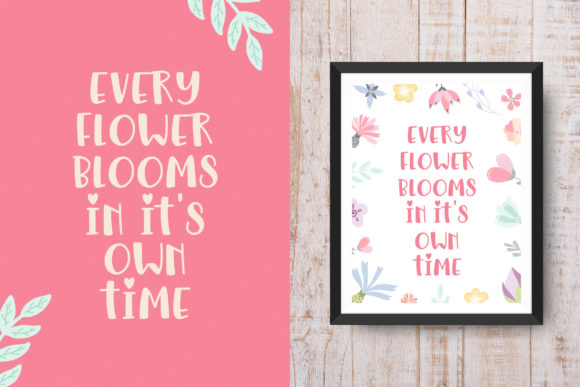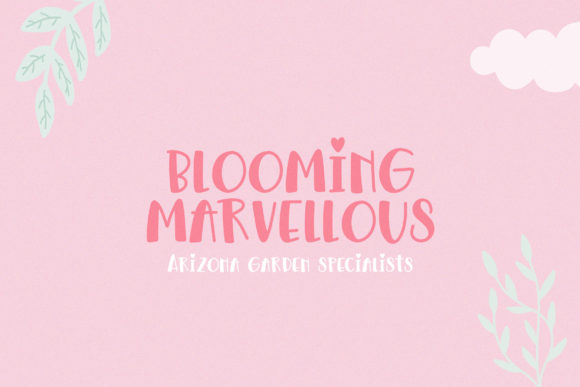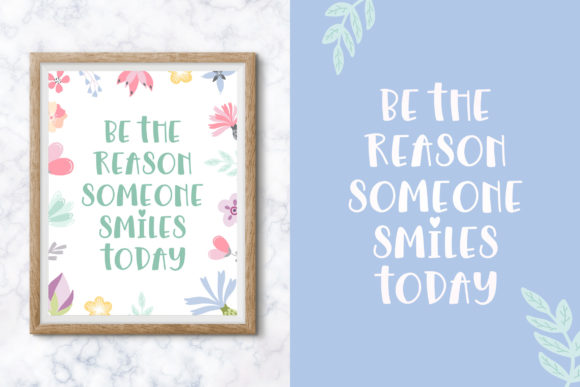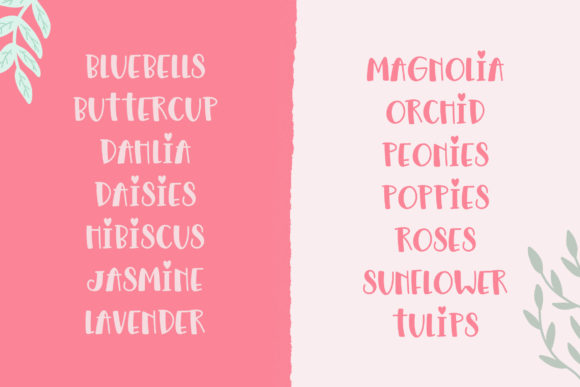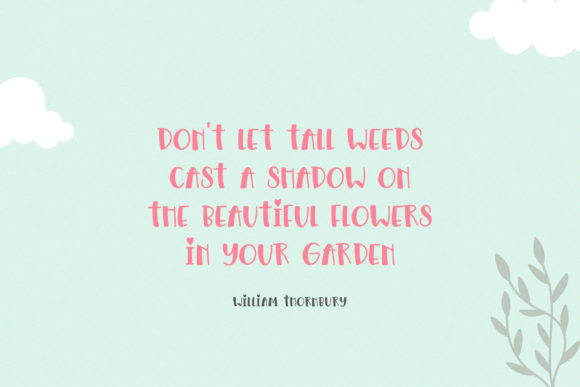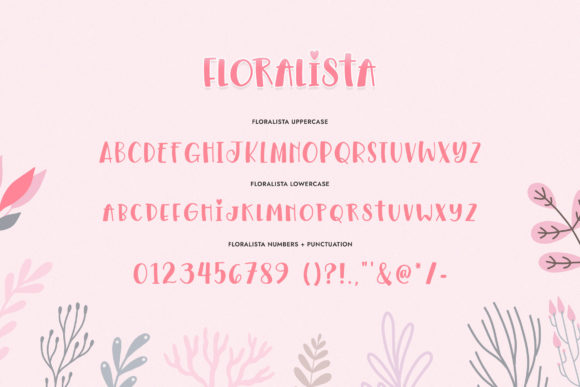
Introduction to Floralista Font
As a designer, there’s nothing quite like the thrill of stumbling upon the perfect font to bring a creative project to life. For me, that moment came when I discovered the Floralista Font. Its playful, whimsical feel immediately captured my imagination, and I knew I had to learn more.
With its friendly and cute display style, the Floralista Font is the perfect choice for any children’s activity or school project. Whether you’re designing a logo, creating a flyer, or developing a brand identity, this font is sure to add a touch of authenticity and charm. Its versatility and high-quality design make it a valuable resource for designers, and the best part? It’s available for a free download with a transparent background, making it easy to incorporate into any creative project.
Key Features of Floralista Font
- High-quality design resource ideal for creative projects, including invitations, greeting cards, and more.
- Includes a variety of styles and weights, providing versatility for different design applications.
- Designed with a high resolution (up to 300 DPI), ensuring crisp and clear text display.
- Perfect for designers seeking a unique, elegant, and sophisticated font for their creative project.
Honest Review: Floralista Font
As a designer, I’m always on the lookout for high-quality fonts that can elevate my creative projects. The Floralista Font is a beautiful, hand-drawn design that’s perfect for adding a touch of elegance to any design. With its transparent background, it’s easy to layer and customize to suit your needs.
Here are some things that work well about the Floralista Font:
- ✨ Beautiful, hand-drawn design that’s perfect for creative projects
- ✨ High-quality font that’s crisp and clear
- ✨ Transparent background makes it easy to layer and customize
- ⚠️ Limited character set, which may not be suitable for long blocks of text
- ⚠️ May not be as versatile as other fonts, due to its hand-drawn design
Overall, I’m impressed with the Floralista Font. It’s a beautiful, high-quality design that’s perfect for adding a touch of elegance to your creative projects. While it may have some limitations, it’s a great resource for designers who want to add a unique touch to their work.
Getting the Most Out of Floralista Font
To get the most out of the Floralista Font, use it on a transparent background to create a beautiful, high-quality design. This will allow the font to take center stage and add a touch of sophistication to your creative project.
The Floralista Font is ideal for use in wedding invitations, floral-themed designs, and other creative projects that require a touch of elegance and sophistication.